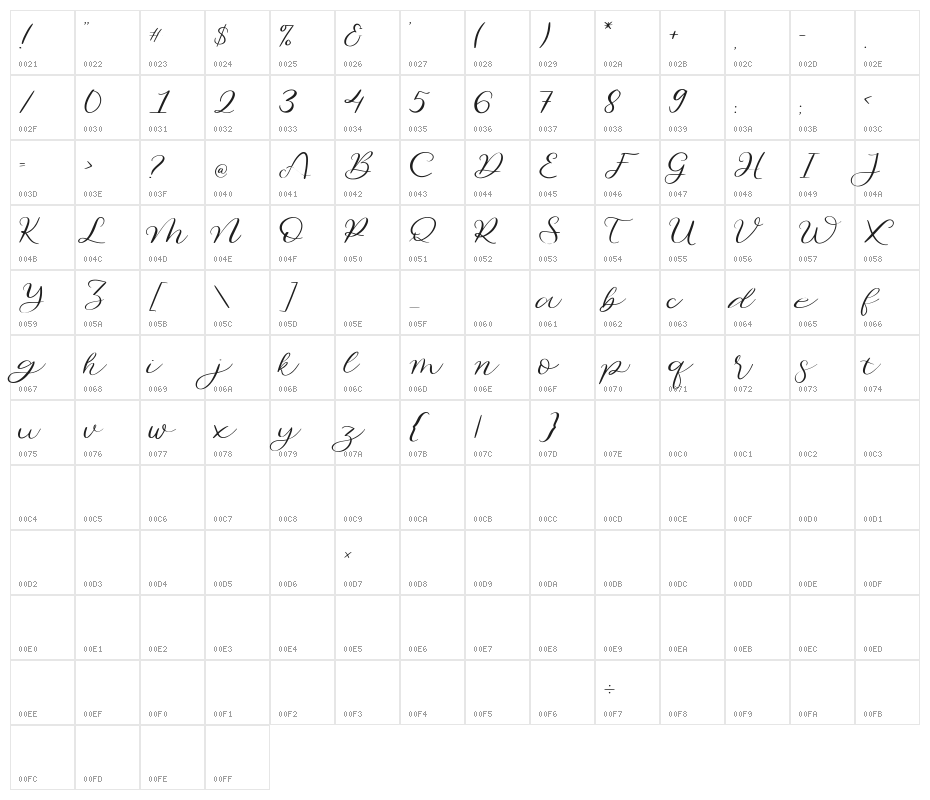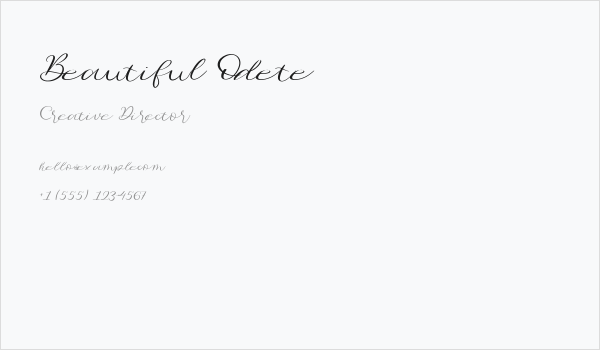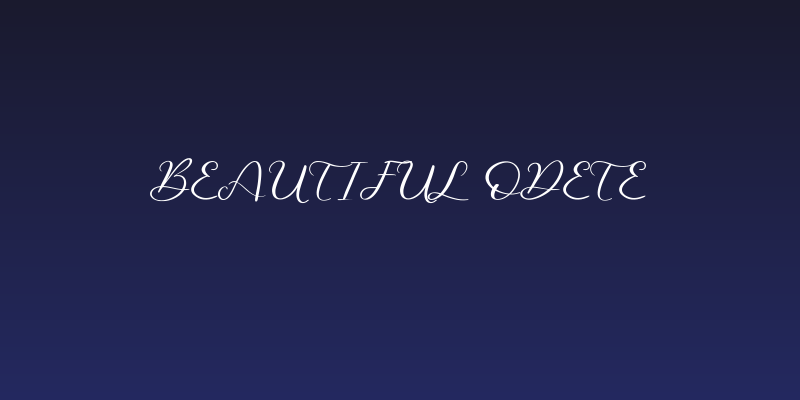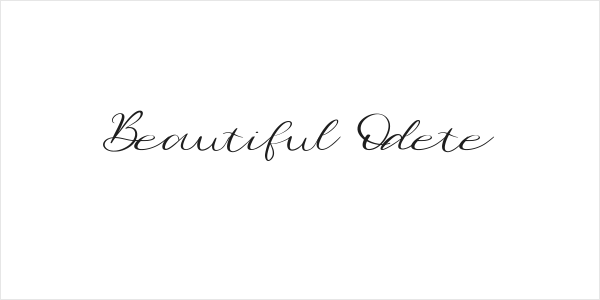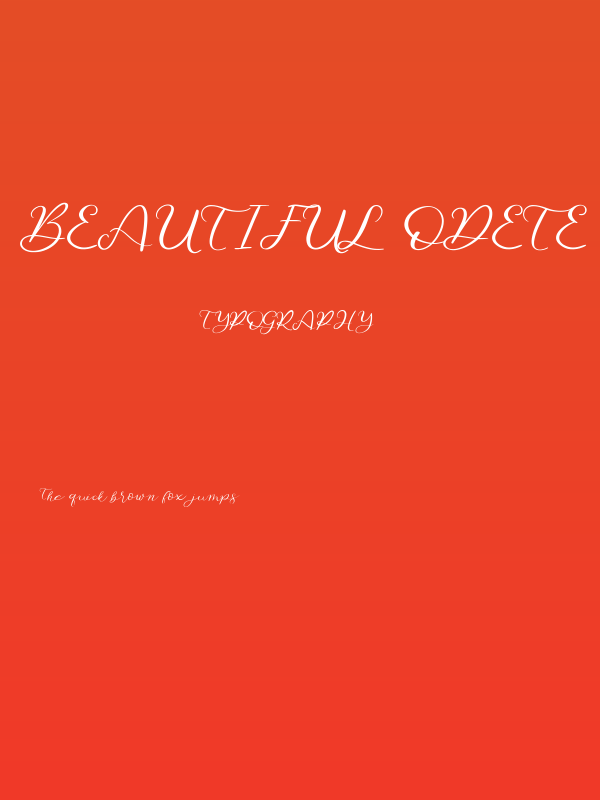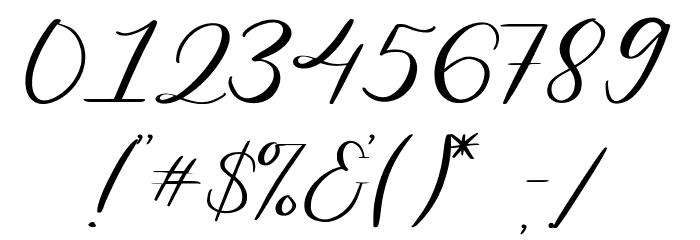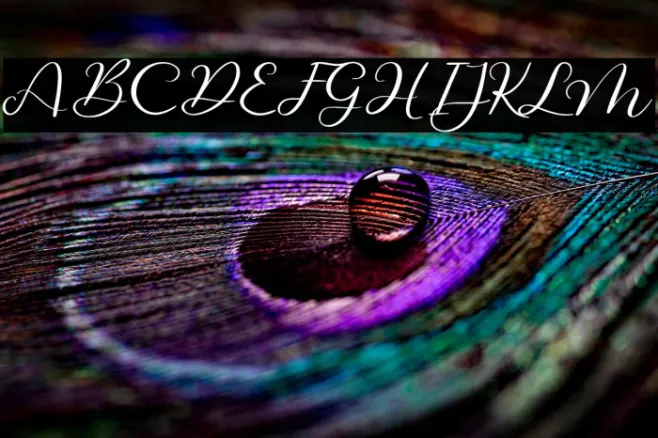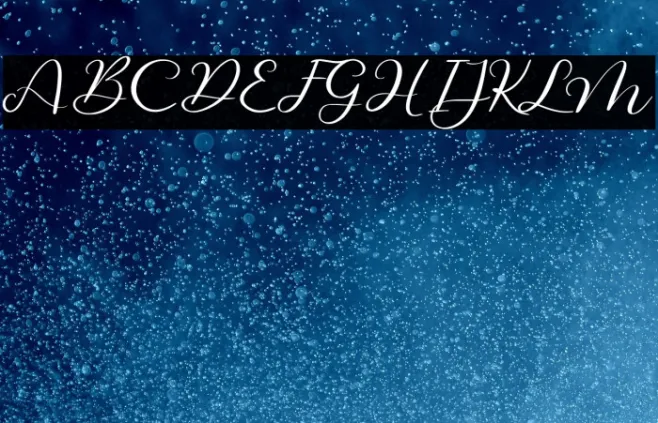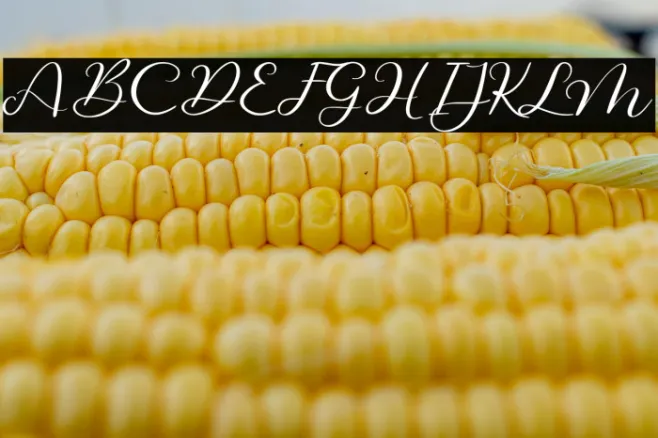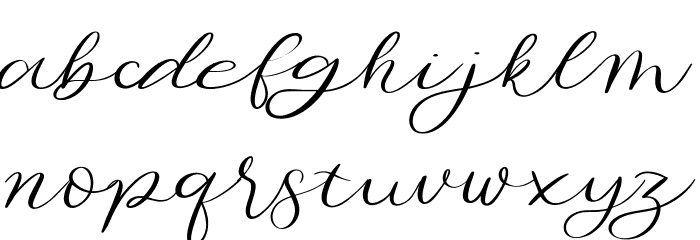
Beautiful Odete Font
Beautiful Odete Description
This elegant script font features flowing, cursive letterforms that exude sophistication and grace. The uppercase letters are characterized by their sweeping curves and intricate loops, while the lowercase letters maintain a consistent fluidity that complements the overall style. The numerals are designed with a similar flair, ensuring a cohesive look across all characters. Special characters are thoughtfully integrated, adding versatility to the font's applications. The strokes vary in thickness, providing a medium contrast that enhances readability without sacrificing the font's decorative appeal. This font is perfect for projects that require a touch of elegance and refinement.
| Use Case | Headlines, Invitations, Branding |
| Proposed Projects | Ideal for wedding invitations, elegant branding, greeting cards, and upscale packaging. |